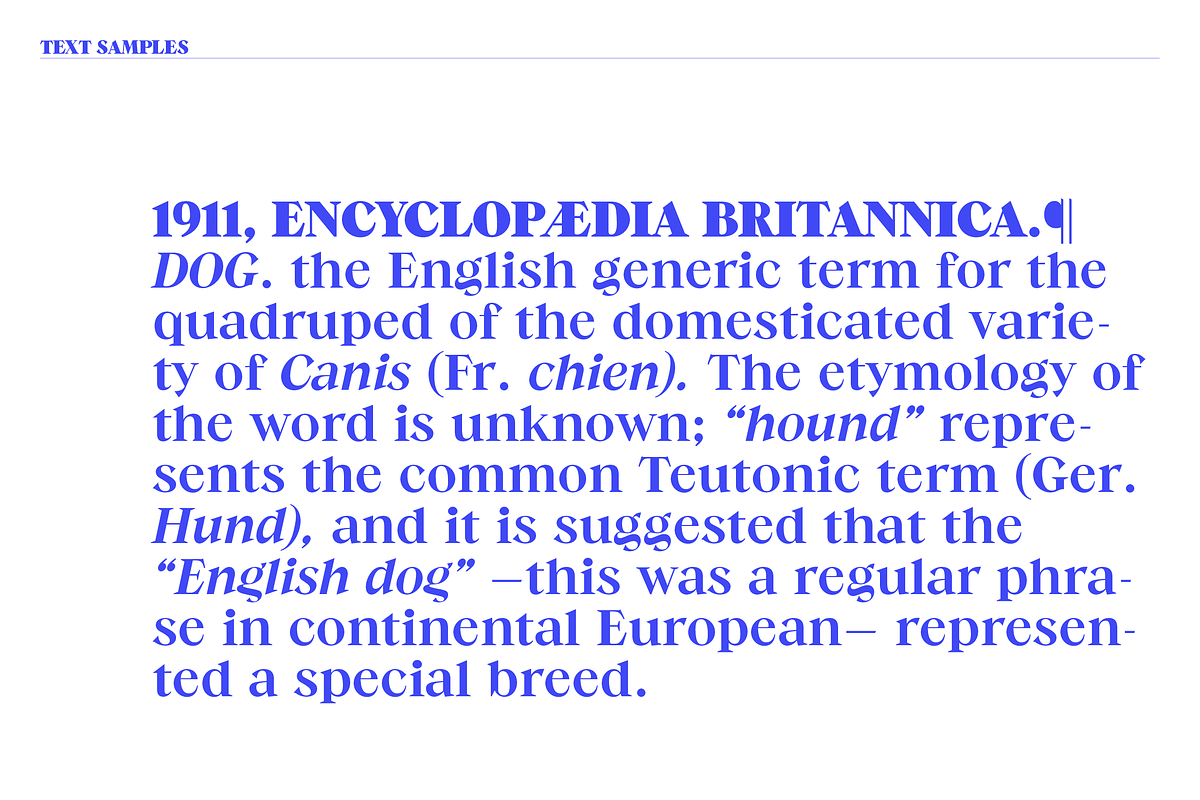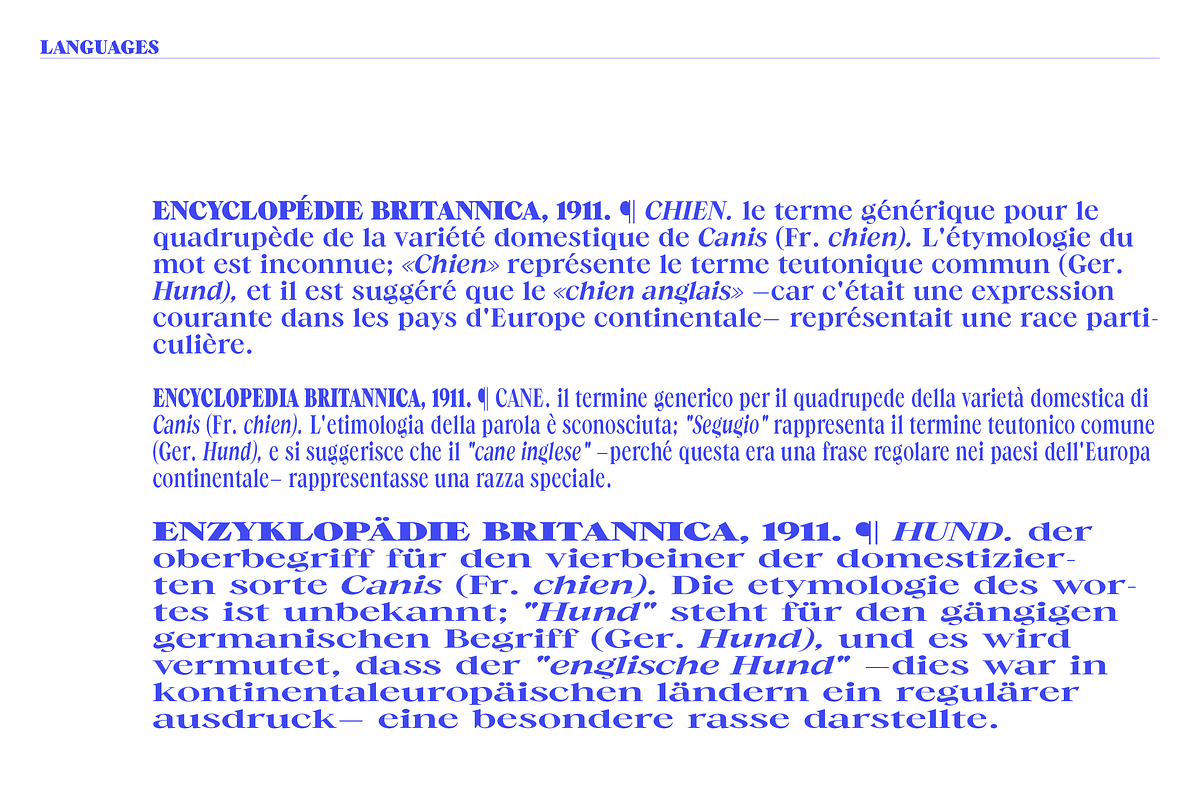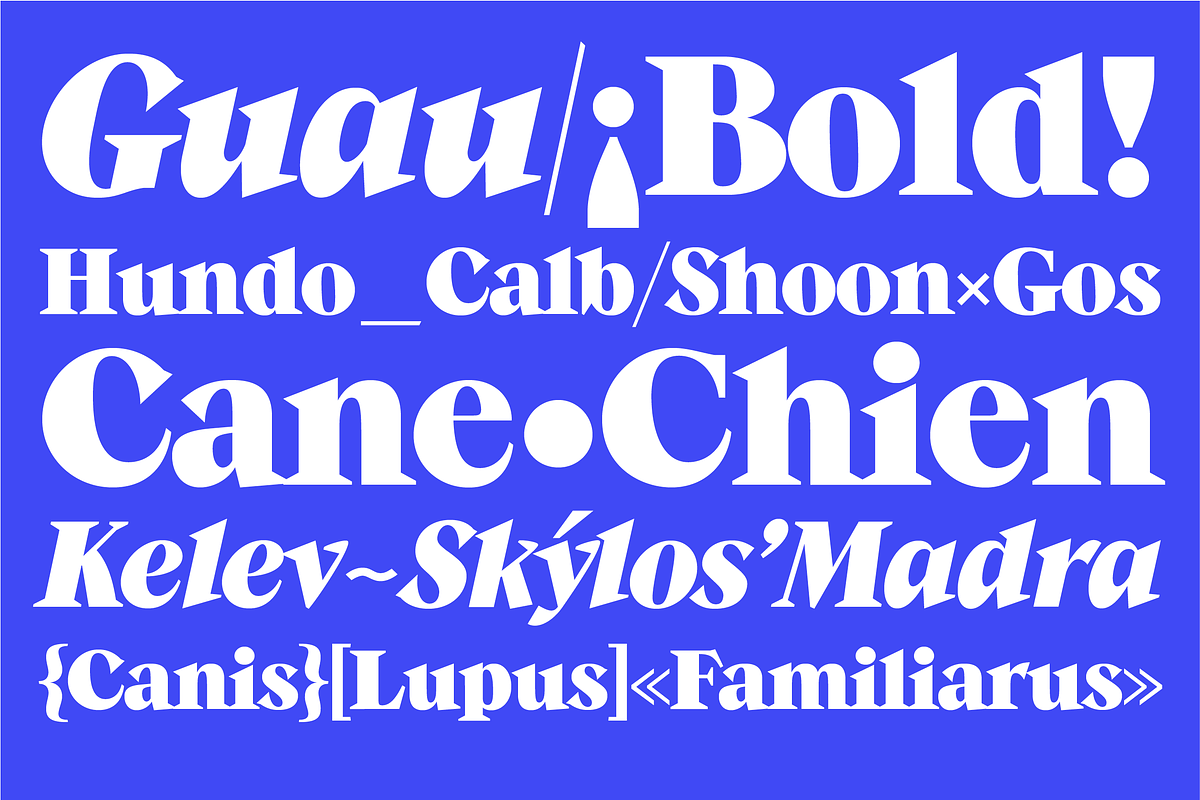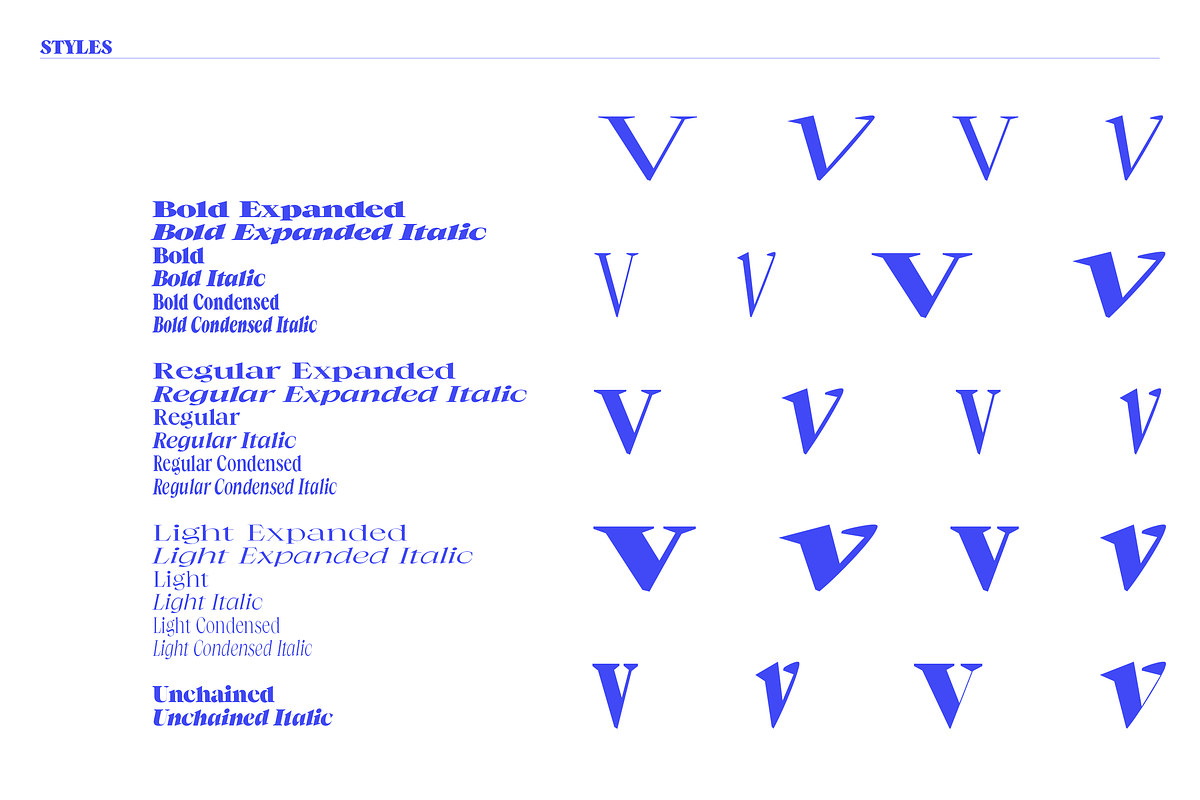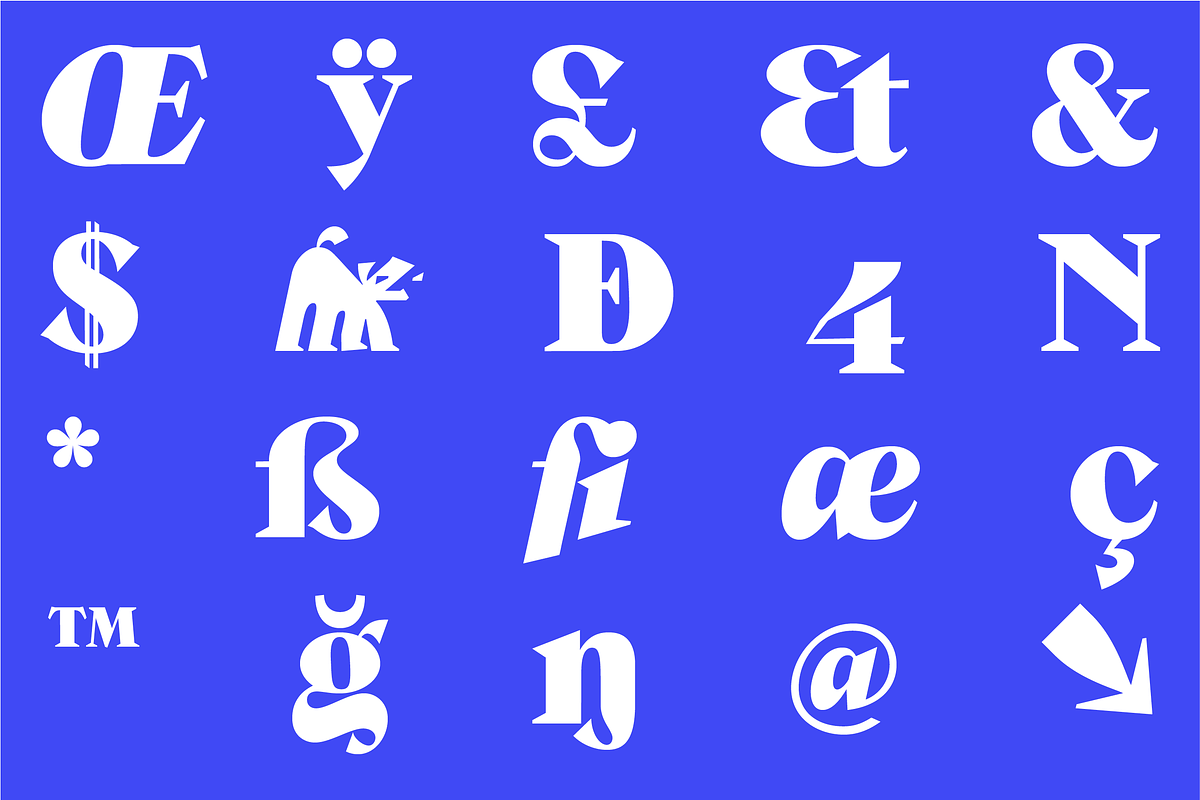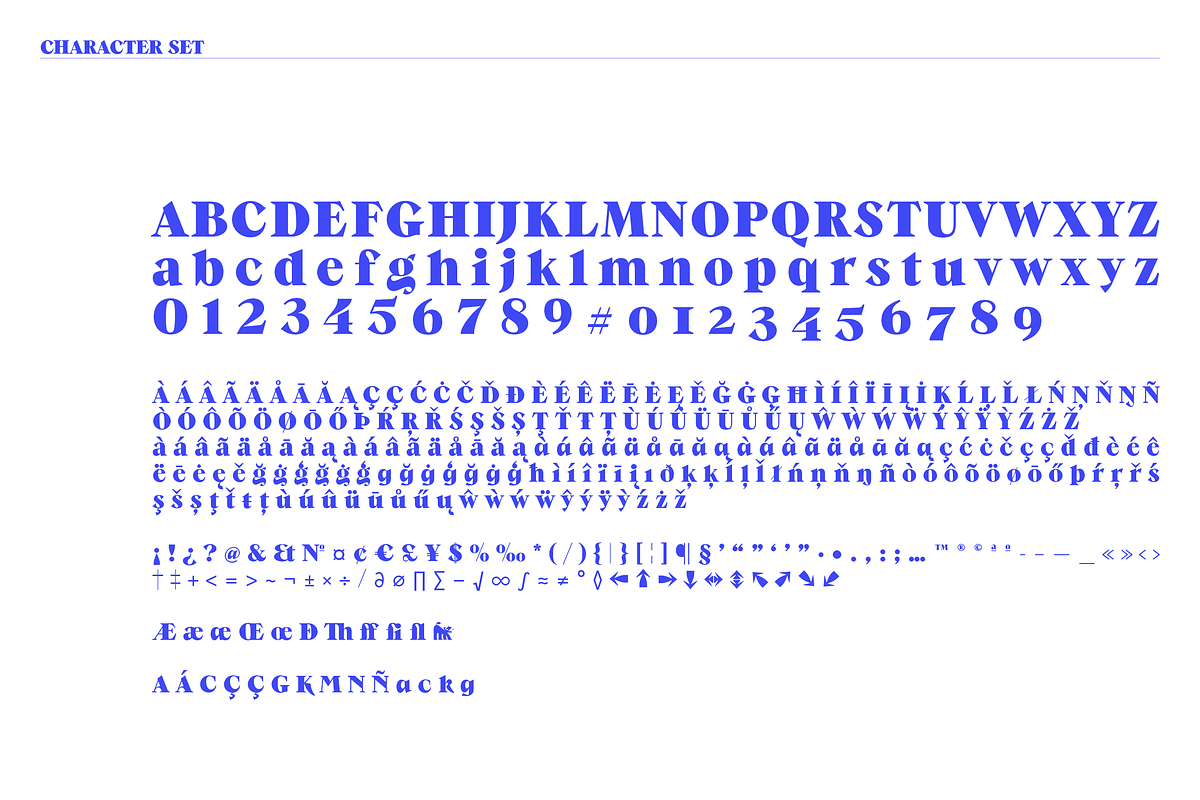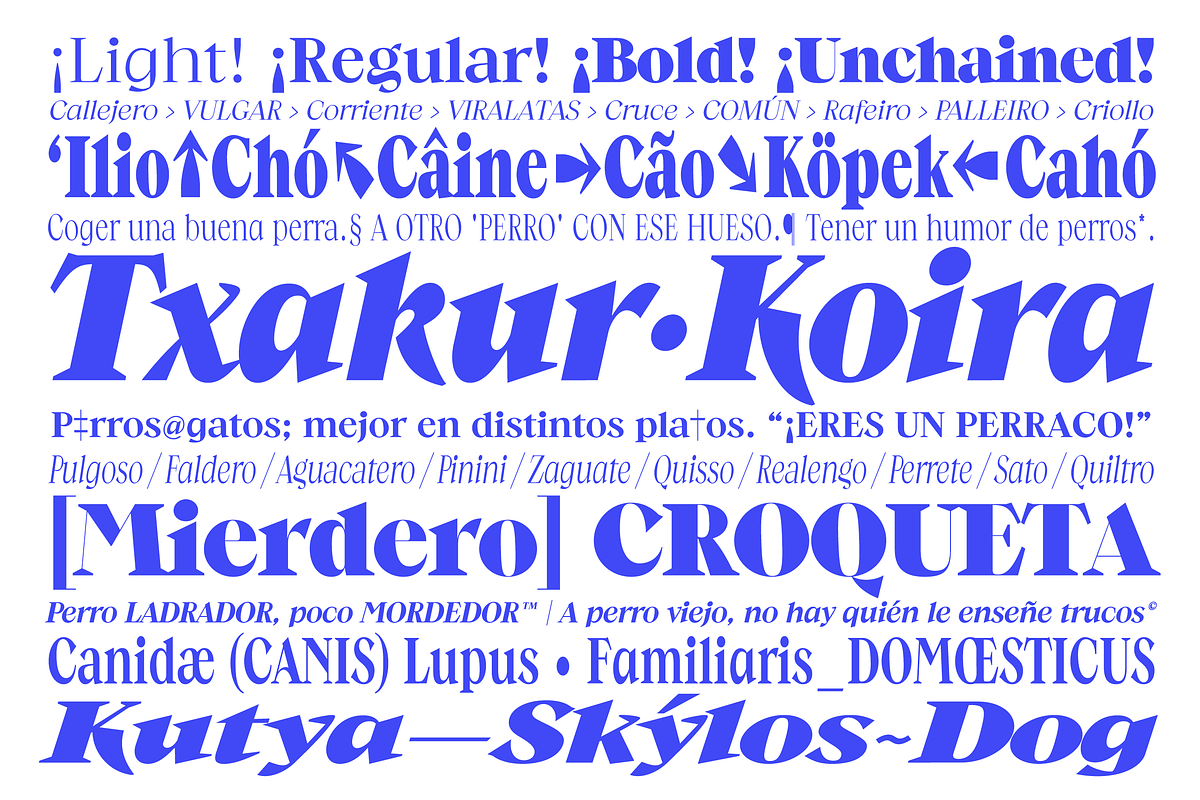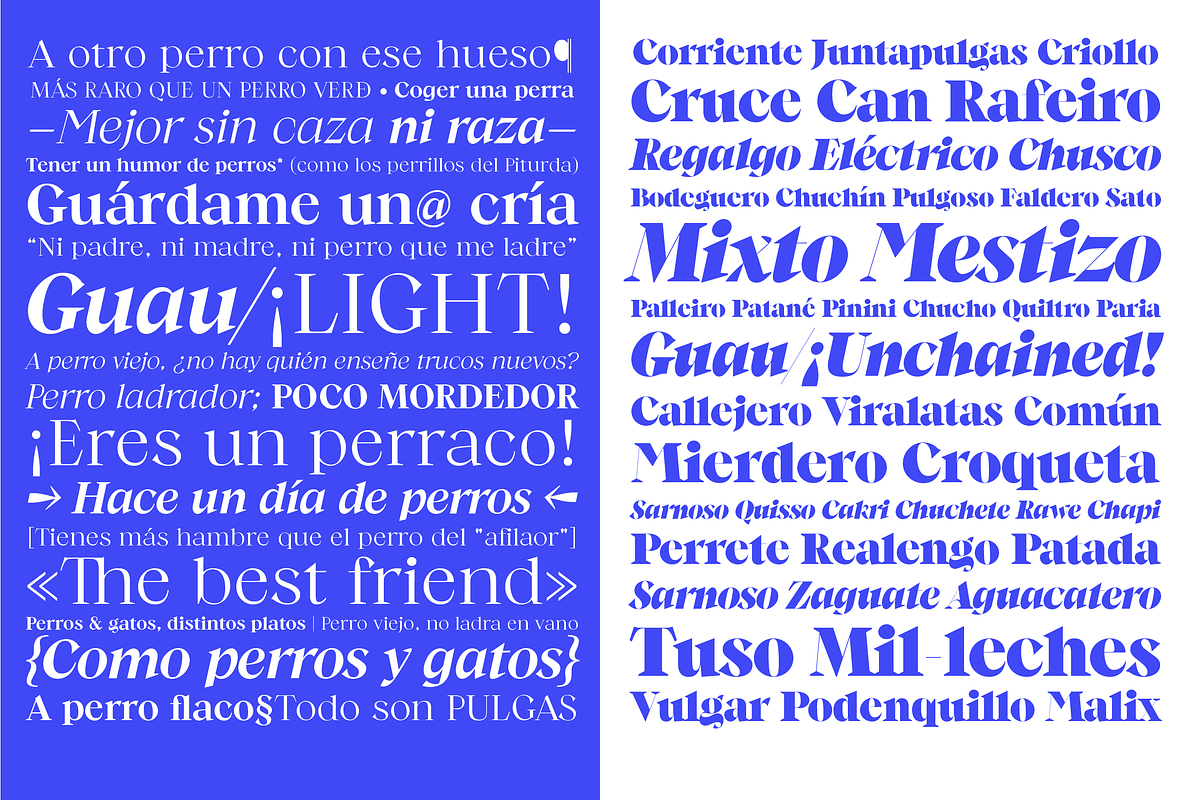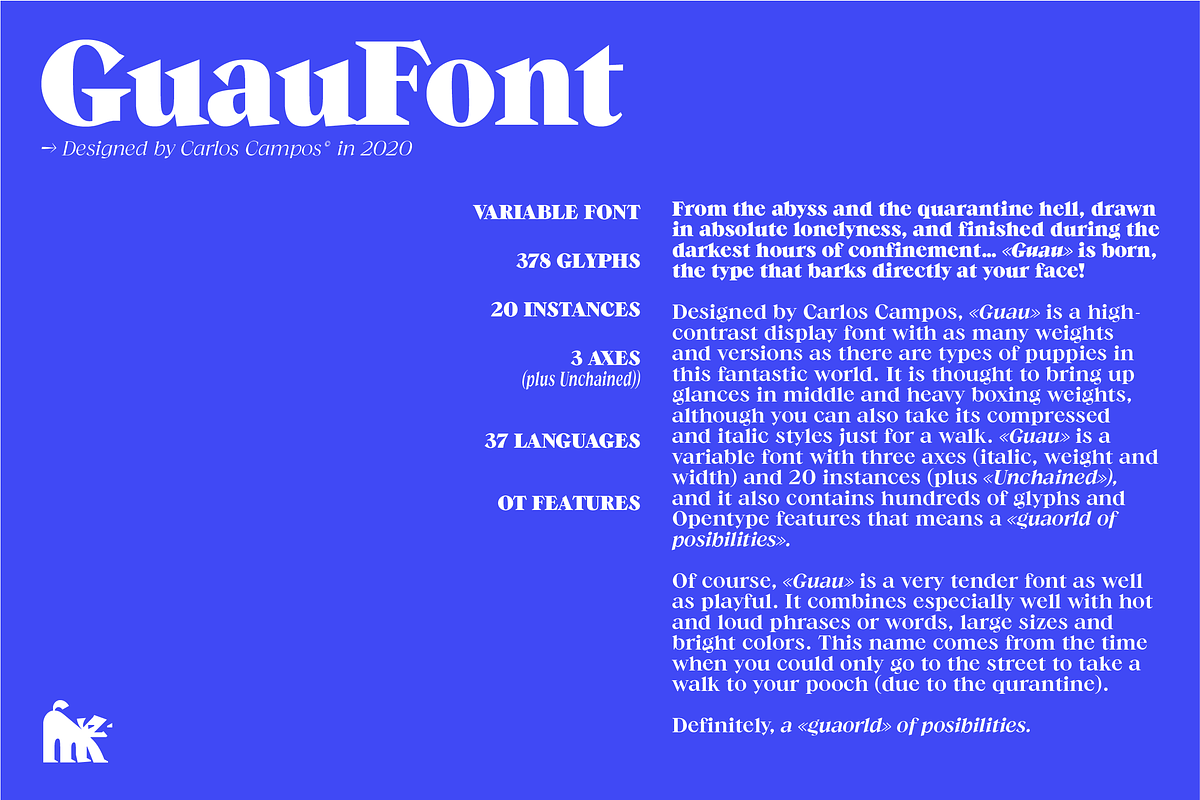
Guau Font
GUAU is a serif font designed by Carlos Campos (Cuchi, Qué Tipo!).
«Guau» ("woof" bark sound in spanish) is a high-contrast display font with as many weights and versions as there are types of puppies in this fantastic world. It is thought to bring up glances in middle and heavy boxing weights, although you can also take its compressed and italic styles just for a walk. «Guau» is a variable font with three axes (italic, weight and width) and 20 instances, and it also contains hundreds of glyphs and Opentype features that means a «guaorld of posibilities».
Of course, «Guau» is a very tender font as well as playful. It combines especially well with hot and loud phrases or words, large sizes and bright colors. «Guau» is born, the type that barks directly at your face!